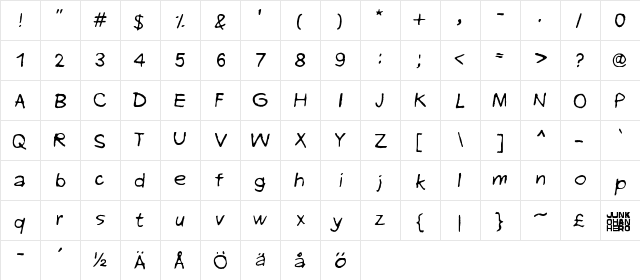
Every end is a new beginning Regular
Design Context for Every end is a new beginning Typeface
Every end is a new beginning is a composed and adaptable typeface that performs quietly and consistently across a wide range of design contexts.
Pro Tip: Use Every end is a new beginning in both headline and body roles to test its range before committing to a single application.